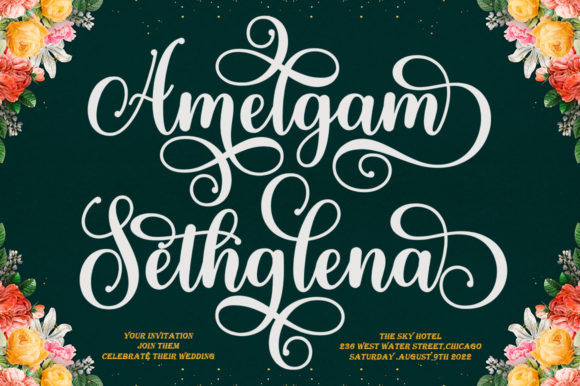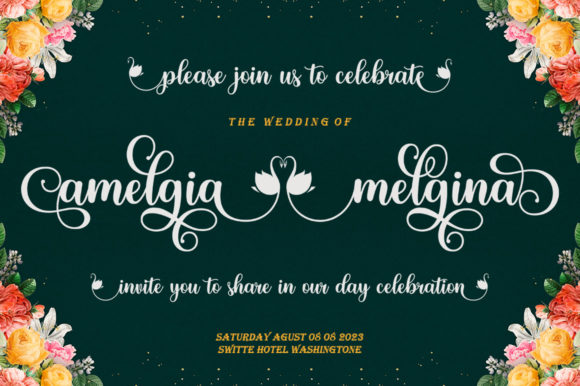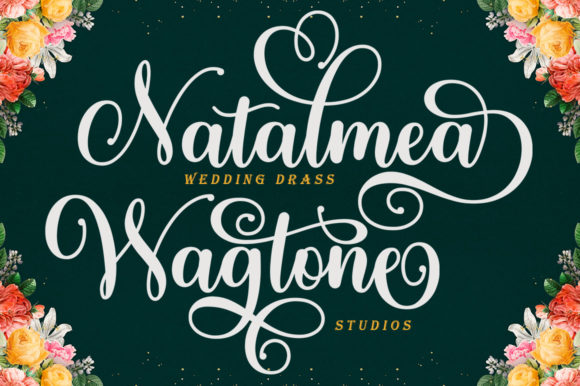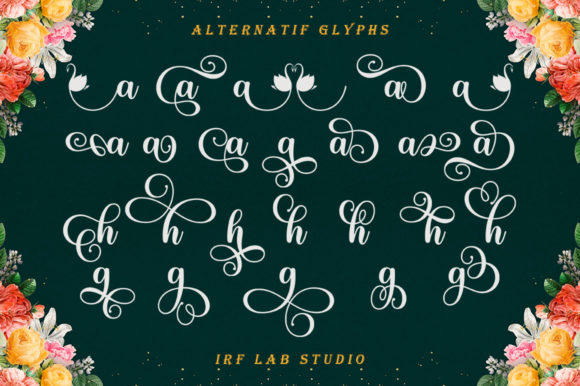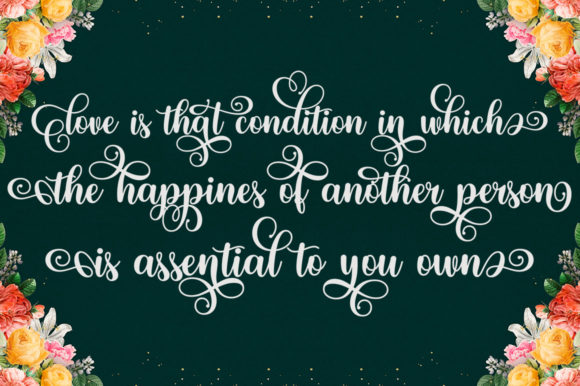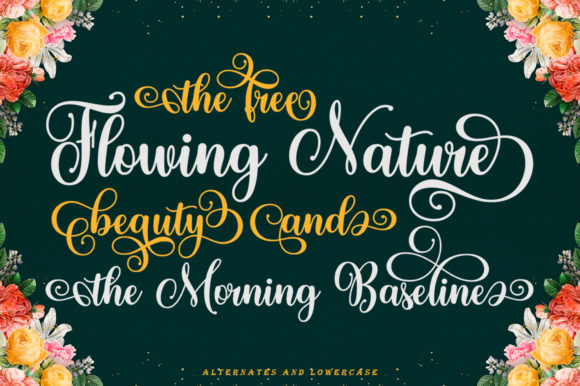
Unleash Your Creativity with Baligline Beauty Font
Have you ever been working on a project, and suddenly, an idea hits you like a ray of sunshine? You’re bursting with creativity, and nothing seems to be able to contain it. That’s exactly how I felt when I first laid eyes on the Baligline Beauty Font.
Designed to bring a touch of whimsy and charm to your designs, the Baligline Beauty Font is a lovely script font featuring playful characters that seem to dance along the baseline. Whether you’re a seasoned designer or just starting out, this font is sure to add a personal touch to your work. With its PUA encoding, accessing all the glyphs and swashes is a breeze, giving you the freedom to get creative and push the boundaries of your imagination.
For designers, the Baligline Beauty Font is a valuable addition to any toolkit. Its unique charm and versatility make it perfect for a wide range of projects, from branding and advertising to editorial and social media content.
Key Features of Baligline Beauty Font
- Font Family: Baligline Beauty
- Unique Characteristics: Hand-drawn, elegant, and feminine design, ideal for beauty, fashion, and lifestyle projects
- Language Support: Supports a wide range of languages, including Latin, Cyrillic, and Greek
- Kerning and Ligatures: Optimized for smooth text rendering and beautiful typography
Review of Baligline Beauty Font
I recently had the chance to work with the Baligline Beauty Font, and here’s my honest review:
- ✨ Elegant and feminine design: The Baligline Beauty Font is perfect for beauty, fashion, and lifestyle brands that want to convey a sense of luxury and sophistication.
- ✨ Versatile: This font is great for both digital and print applications, from social media to packaging and advertising.
- ✨ Unique character set: The Baligline Beauty Font includes a range of special characters, including ligatures and swashes, that add an extra touch of elegance to your designs.
- ⚠️ Limited font sizes: I found that the Baligline Beauty Font doesn’t scale well to very large font sizes, which can make it difficult to use in certain situations.
- ⚠️ Not suitable for body text: While the font is great for headings and titles, it’s not the best choice for body text due to its elaborate design.
The Baligline Beauty Font is a beautiful and elegant typeface that’s perfect for brands that want to convey a sense of luxury and sophistication. While it has some limitations, it’s a great choice for headings, titles, and other design elements where you want to make a statement.
Getting the Most Out of Baligline Beauty Font
For best results, use Baligline Beauty Font in conjunction with high-quality images and graphics. Experiment with different font sizes and styles to create visually appealing designs. You can also use Baligline Beauty Font in combination with other fonts to create a unique and personalized look.
Baligline Beauty Font is ideal for use in beauty and wellness-related designs, such as brochures, flyers, and social media graphics. It’s also suitable for use in fashion and lifestyle designs, such as product labels and advertising materials.